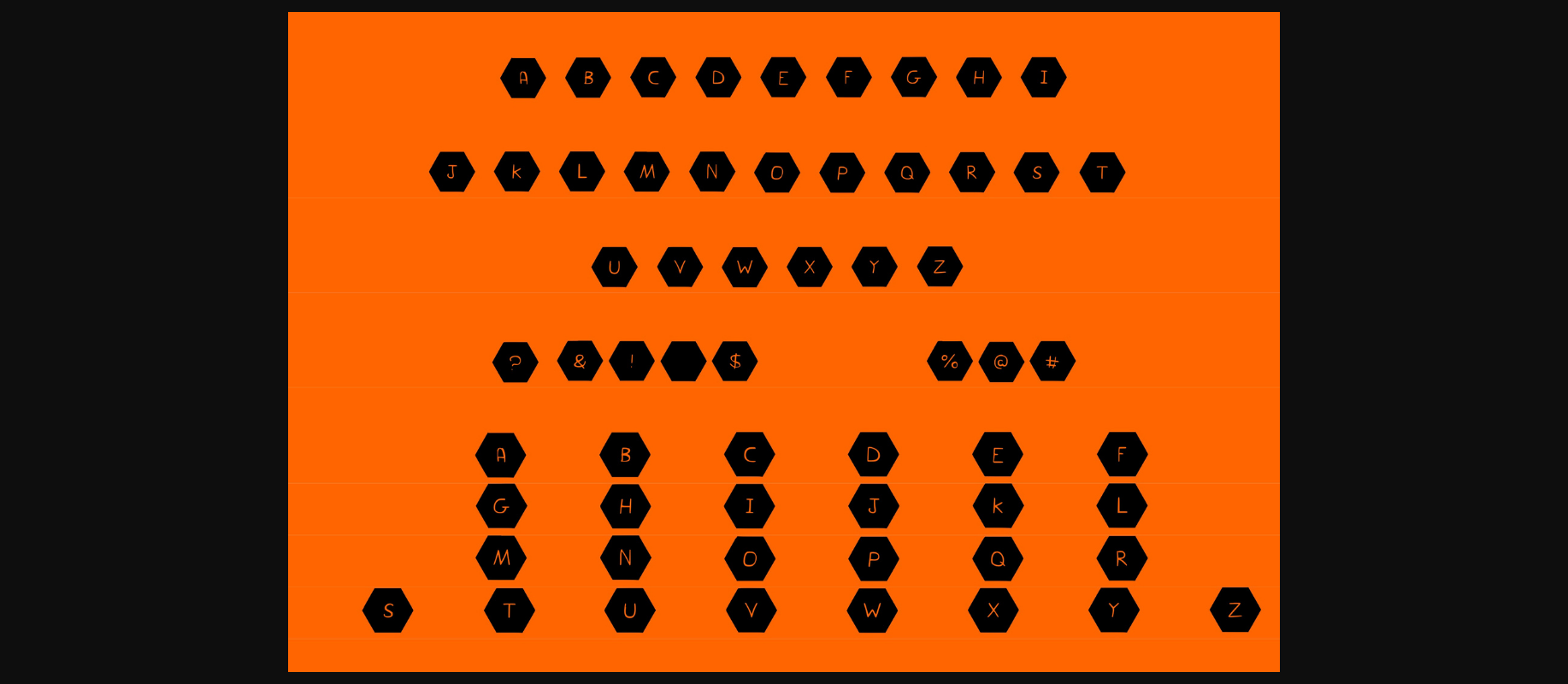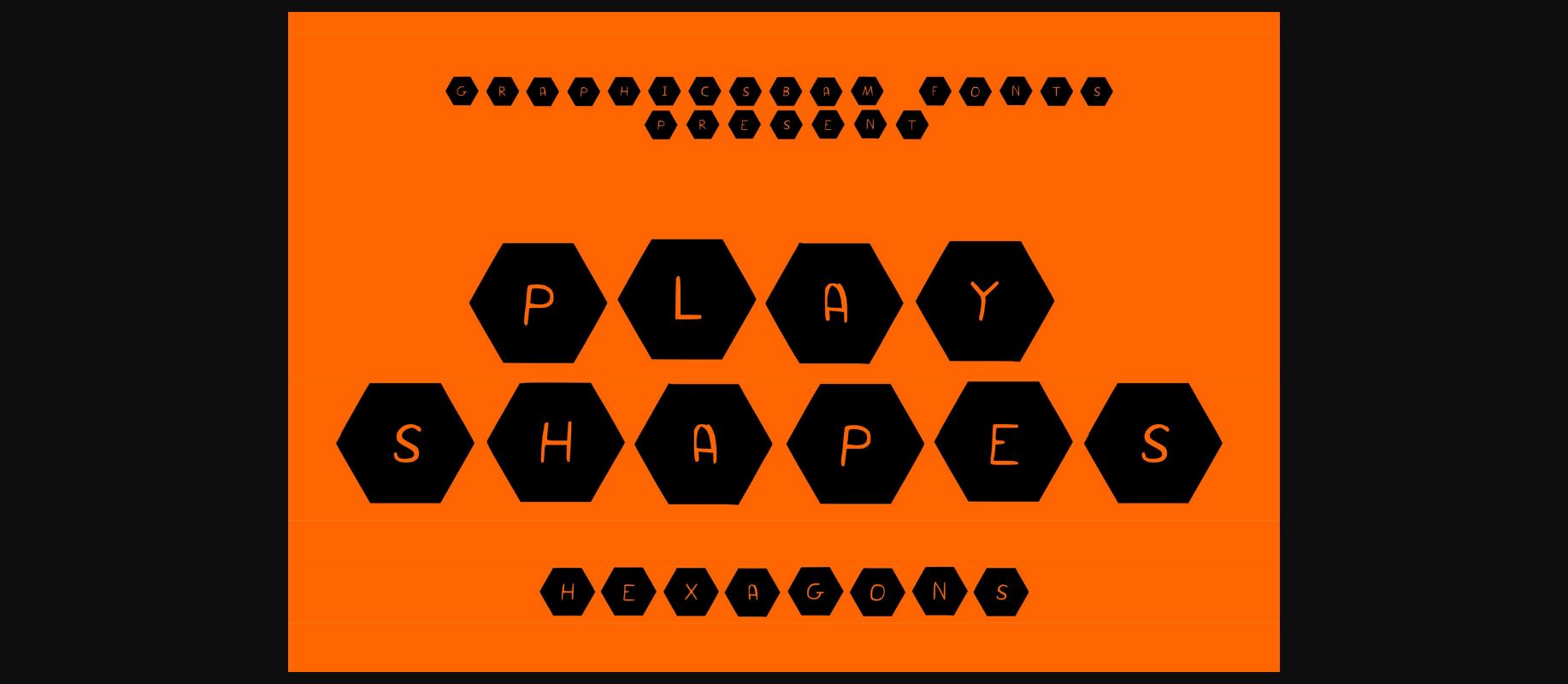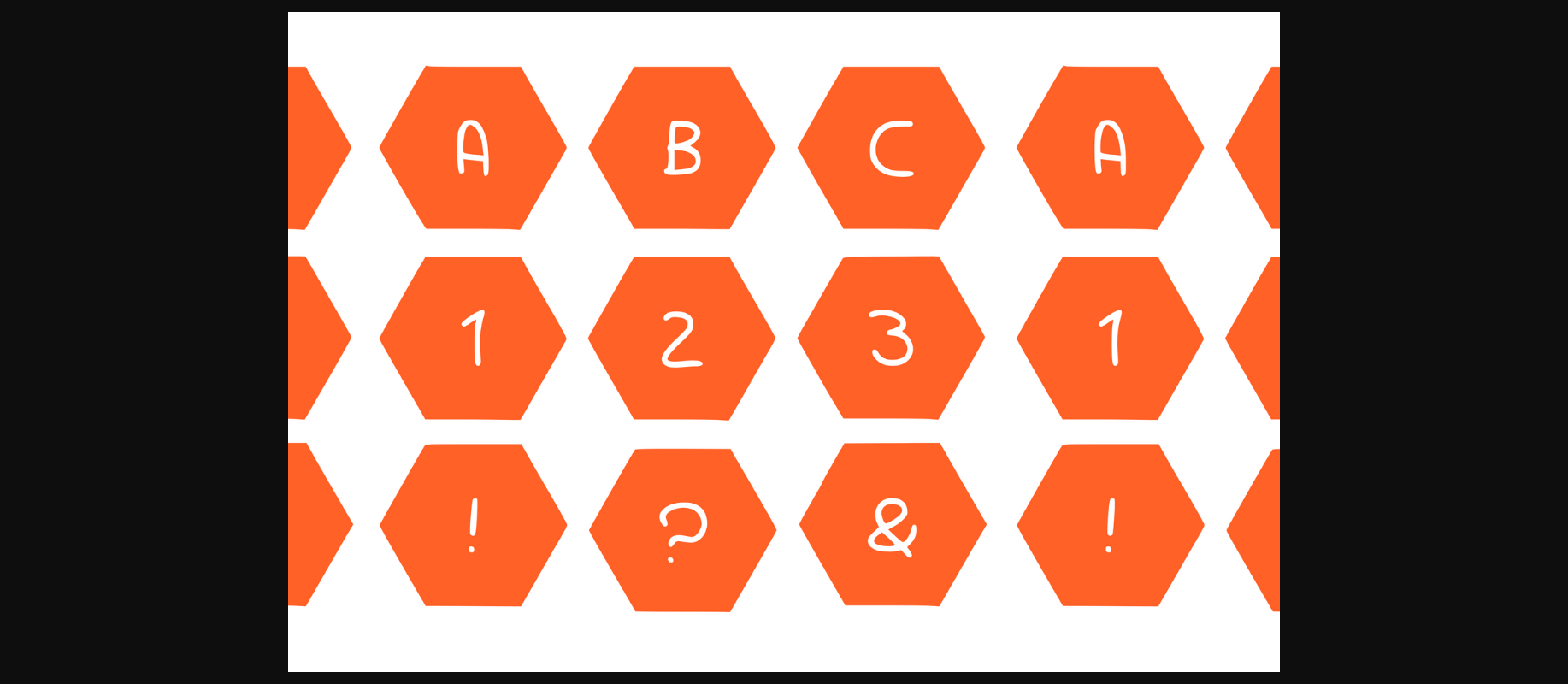
HomeDecorative FontsPlay Shapes Hexagons Font Decorative Fonts Play Shapes Hexagons Font FacebookXPinterestWhatsApp 1 of 5 ... Play Shapes Hexagons Font Poster 2... Play Shapes Hexagons Font Poster 3... Play Shapes Hexagons Font Poster 4... Play Shapes Hexagons Font Poster 5... About Play Shapes Hexagons Font Play Shapes Hexagons is a cute, fun and useful decorative font. It will work incredibly well on teaching materials, game designs or pretty much any creation that requires a youthful touch. DOWNLOAD NOW People also explored Rich Rebecca Font Menlawai Font Gojiau Font Hellowin Font Sweetheart Font Male Bella Canvas 3001 Brown Mockup Tee BD Lofi Bruschetta Font Chocolate Candy Cups Font 371 0 TagsPlay Shapes Hexagons Font Previous articleMidocean FontNext articlePlay Shapes Squares Font LEAVE A REPLY Cancel reply Comment: Please enter your comment! Name:* Please enter your name here Email:* You have entered an incorrect email address! Please enter your email address here Website: Save my name, email, and website in this browser for the next time I comment. Personal Use Free Choco Shake Font Personal Use Free Read more about this font Screengem Personal Use Free Read more about this font Lovetle Personal Use Free Read more about this font Dead Block Personal Use Free Read more about this font BLOG 5 Fonts That Will Dominate Design Trends in 2026 5 Fonts for 2026 That Will Dominate Design Trends Typography plays a critical role in visual communication, and as we look ahead to 2026, it’s... Free Fonts Risk: Why Free Fonts Can Be Dangerous for Designers How to Cut Any Font on Cricut: Convert a Font to SVG (Free) The 10 Best Handwriting Fonts to Add Personality to Your Designs